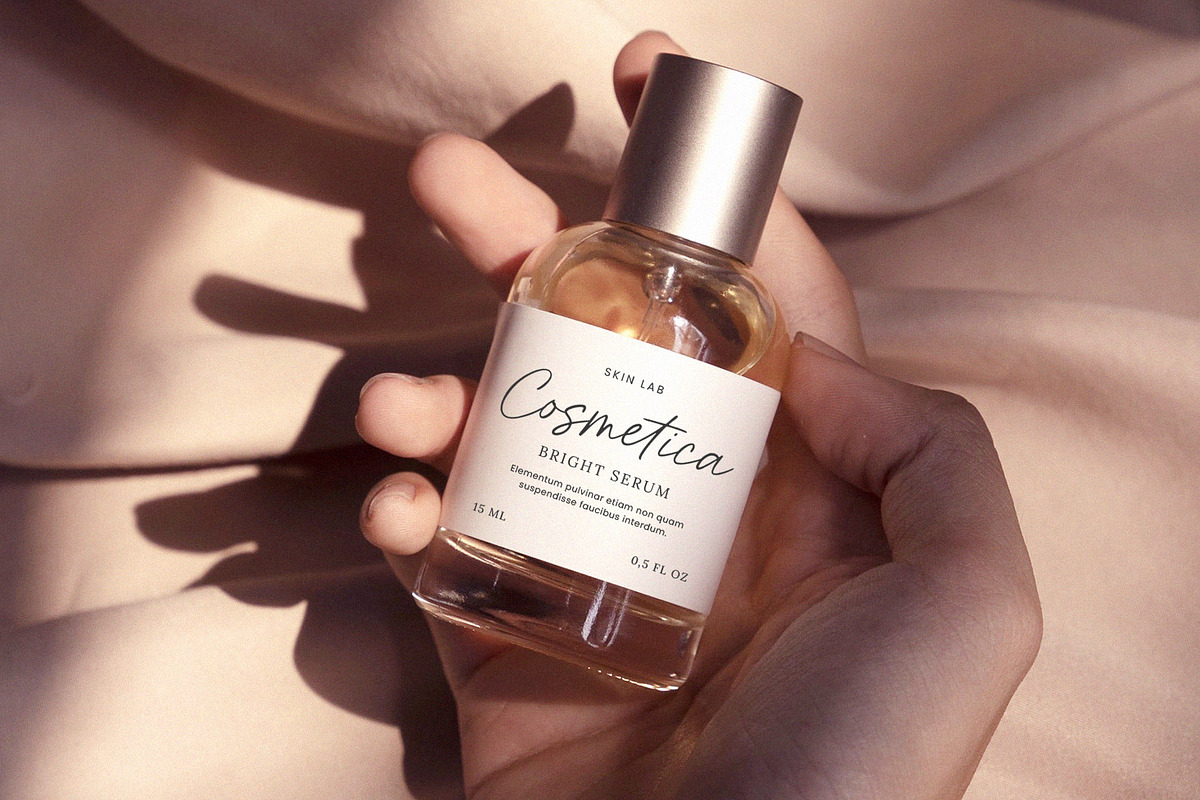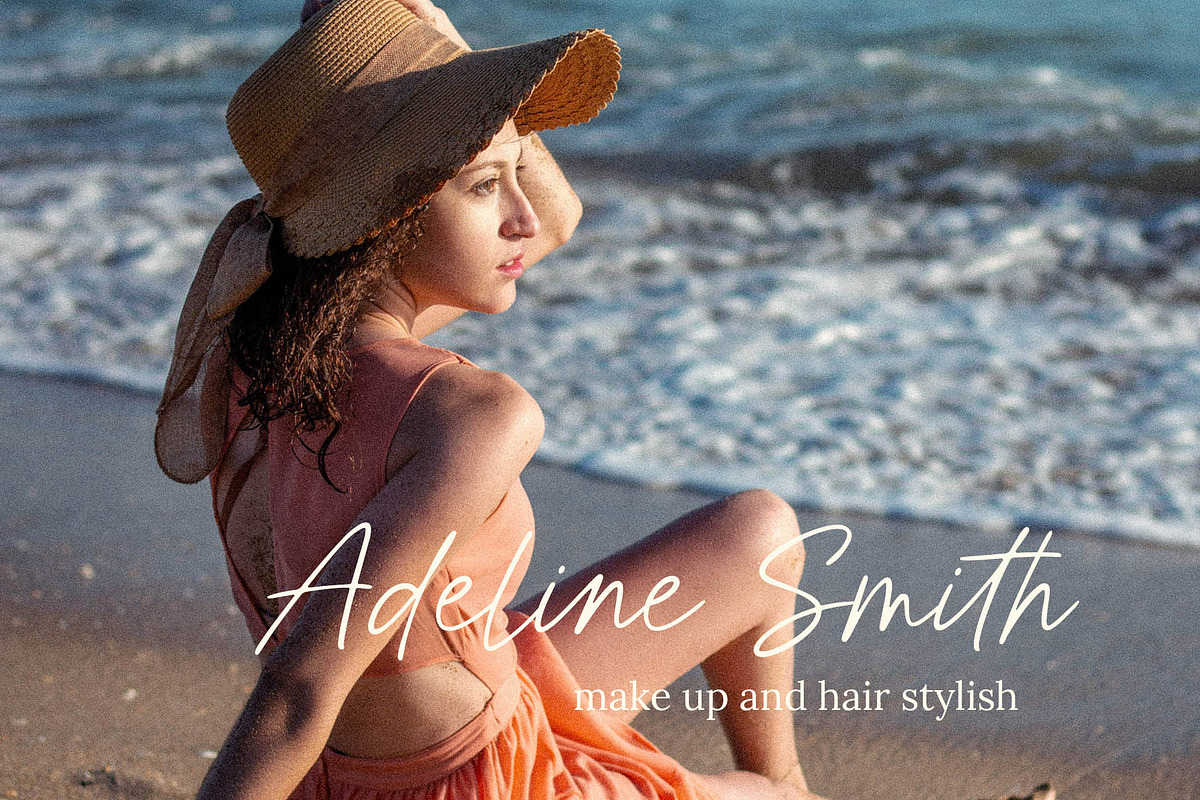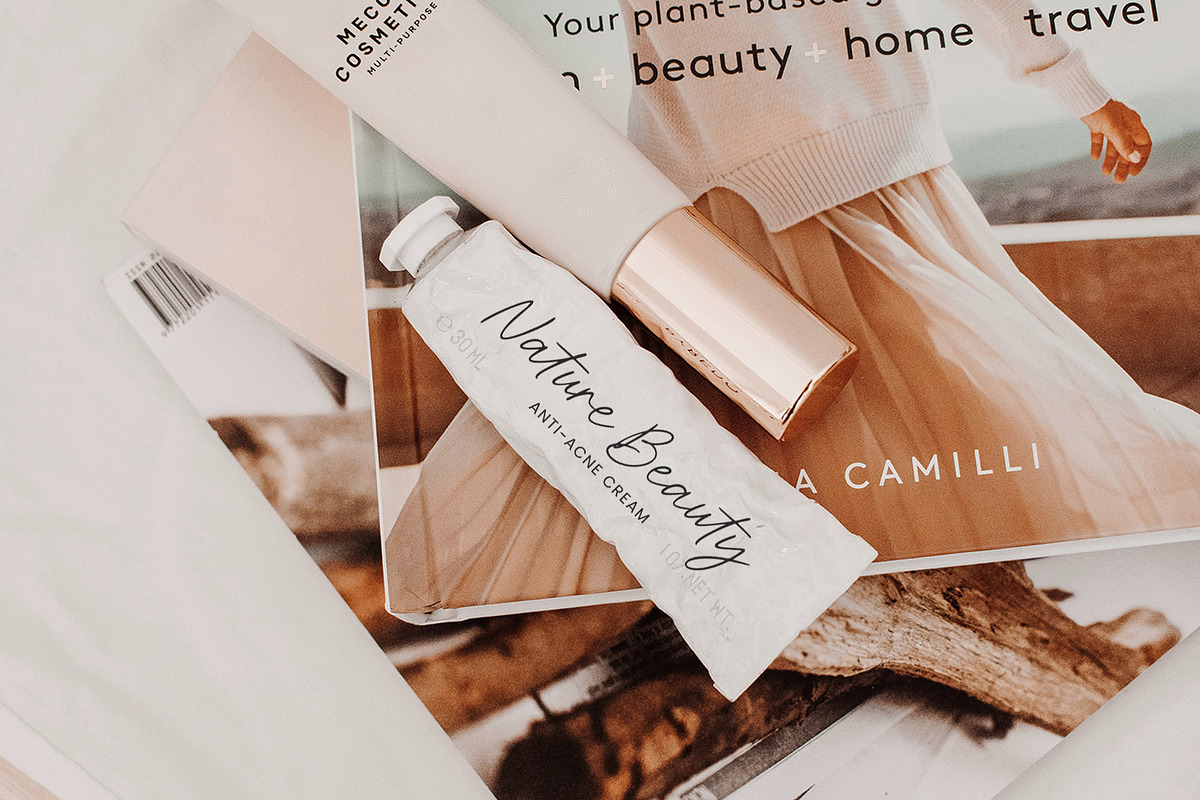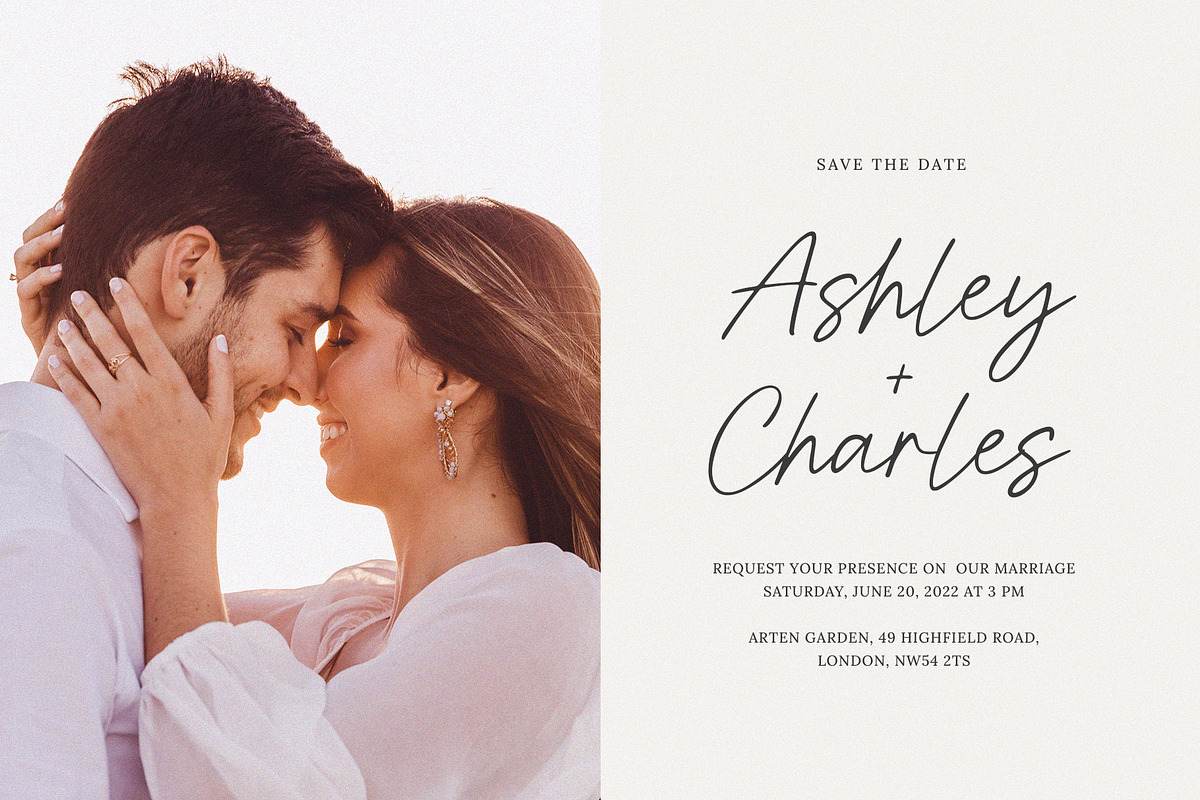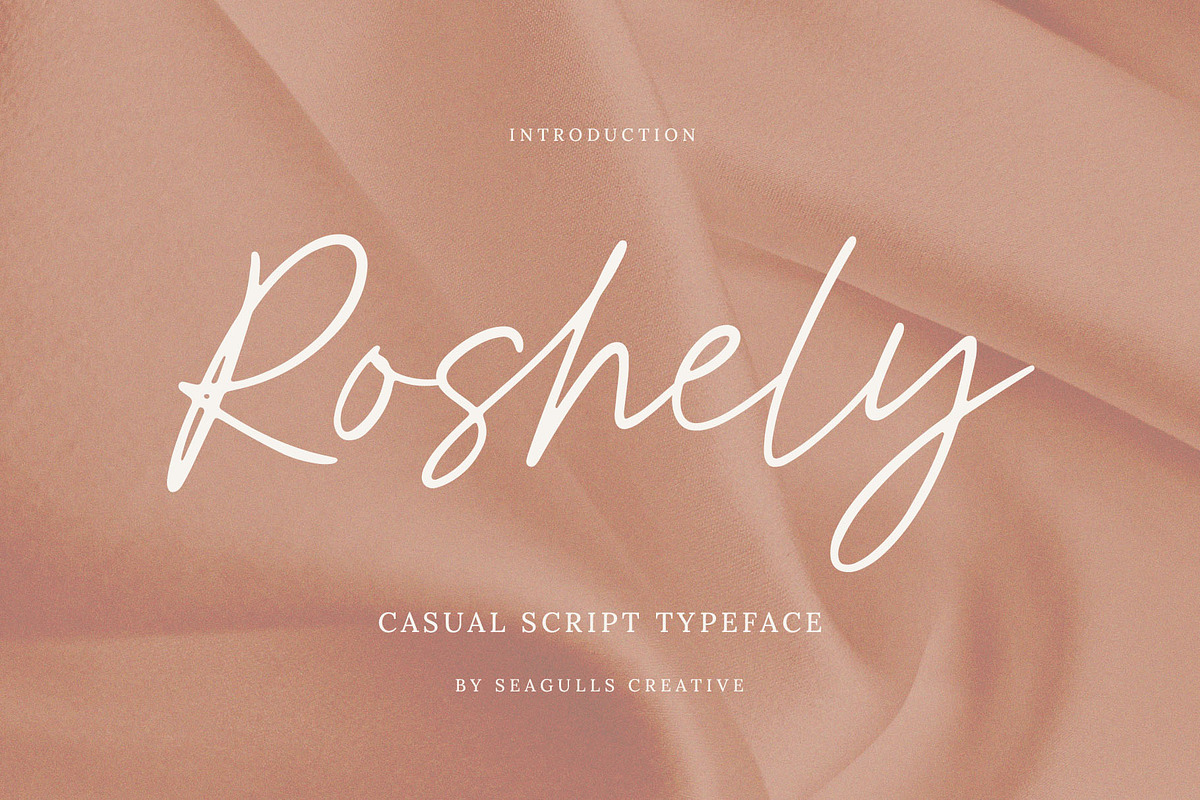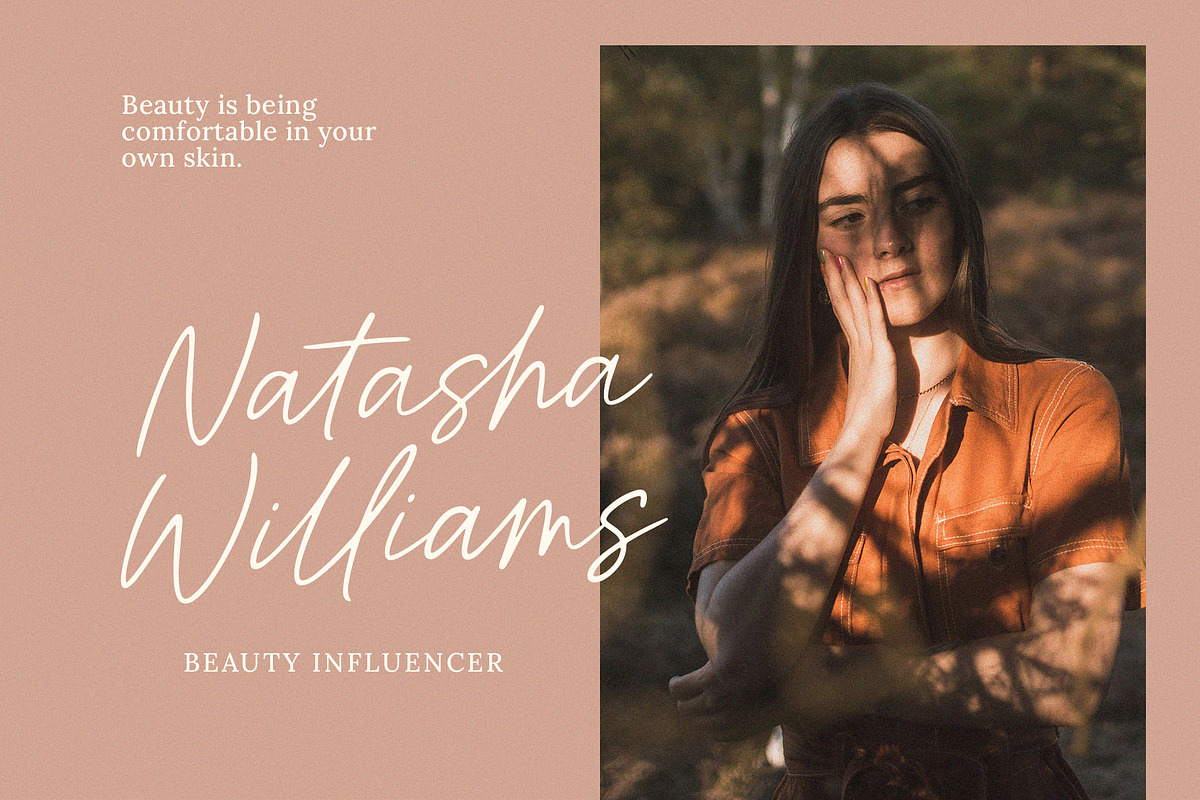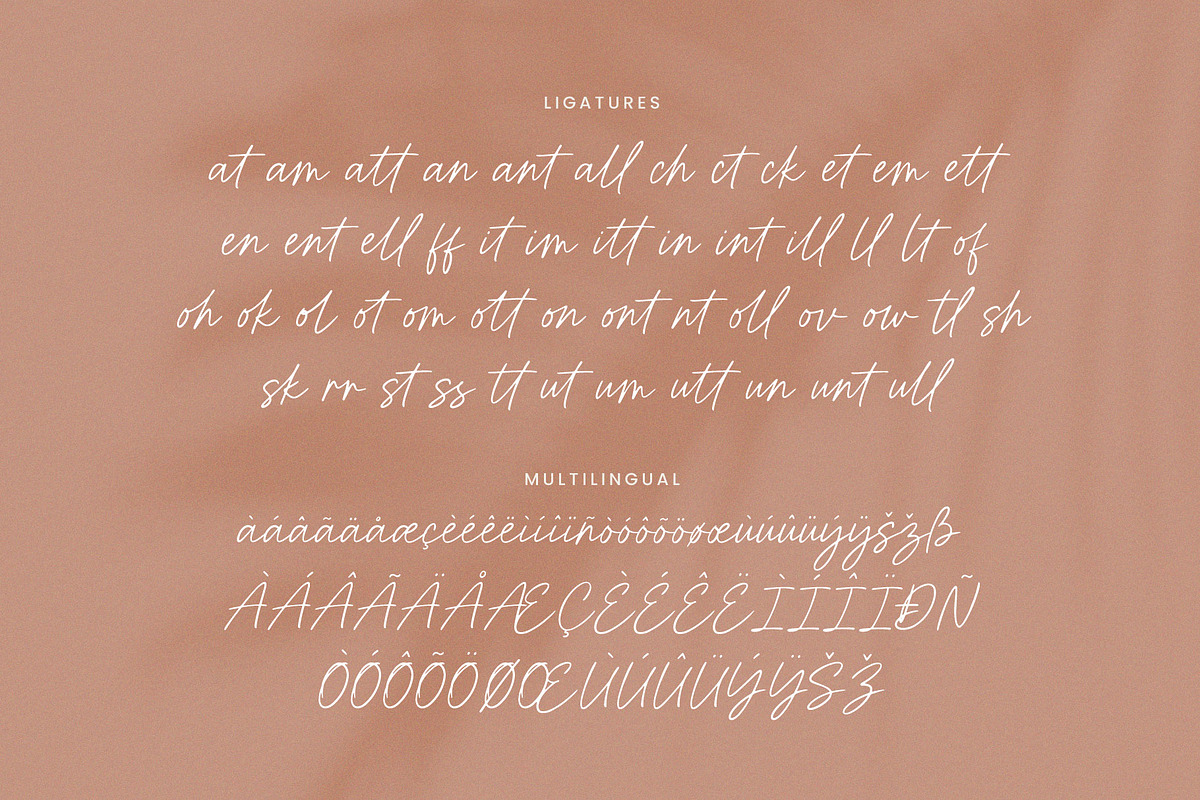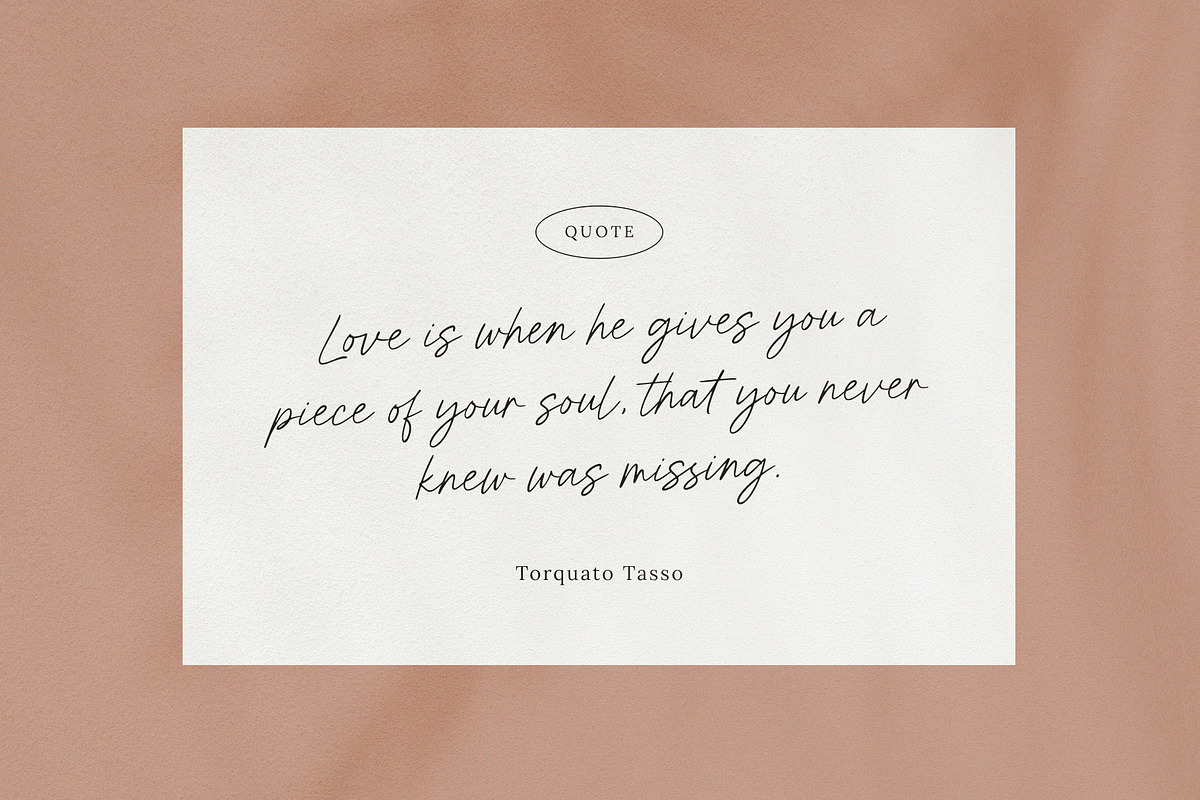
Roshely Casual Script
Hello everyone, I would like to introduce Roshely a casual script font with delicate curves and a unique blend of thick and thin lines.
Roshely can be used for a variety of projects such as branding, labels, photography, invitations, stationery, watermarks, wedding designs, social media posts, advertising, product design, and more.
- Letters, numbers, symbols, punctuation and ligatures
- Fonts include multilingual support